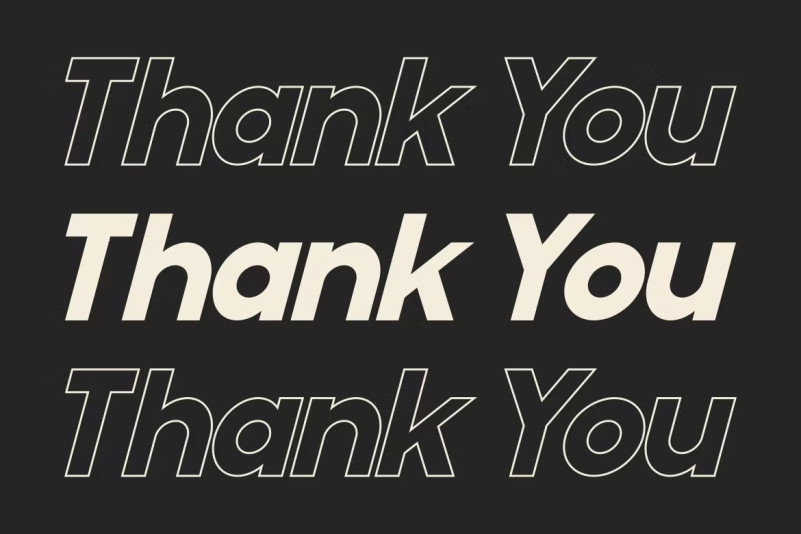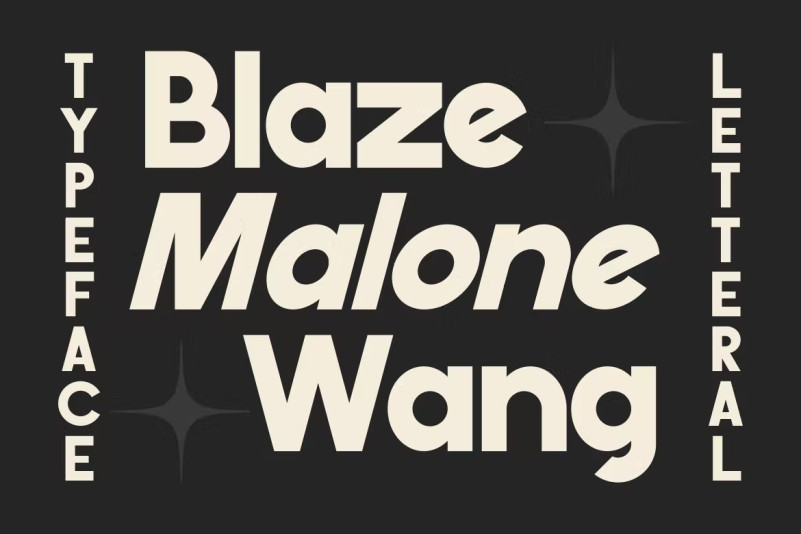
Anallop Font
Anallop Font is a bold and authentic sans display font. The font is suitable for any branding project such as logo, t-shirt print, product and many more. She stands out in a wide range of contexts.